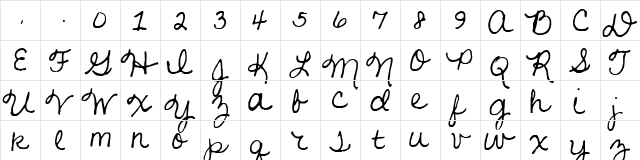
Kristen Script script Font Preview
Kristen Script script
Kristen Script script Font Details
| Style | script |
| Foundry | Font Garden |
| Designer | Kristen - fonted by Ellinor |
Design Context for Kristen Script Typeface
Kristen Script brings a calligraphic fluidity to the page — its connecting strokes and expressive curves give it an unmistakably human quality.
Font Pairing: Combine Kristen Script with a simple geometric sans for maximum contrast — the tension between flowing curves and clean structure is a classic typographic pairing.
Pro Tip: Use Kristen Script for short runs of text — names, titles, or taglines. Extended body copy in script faces tires the eye quickly.